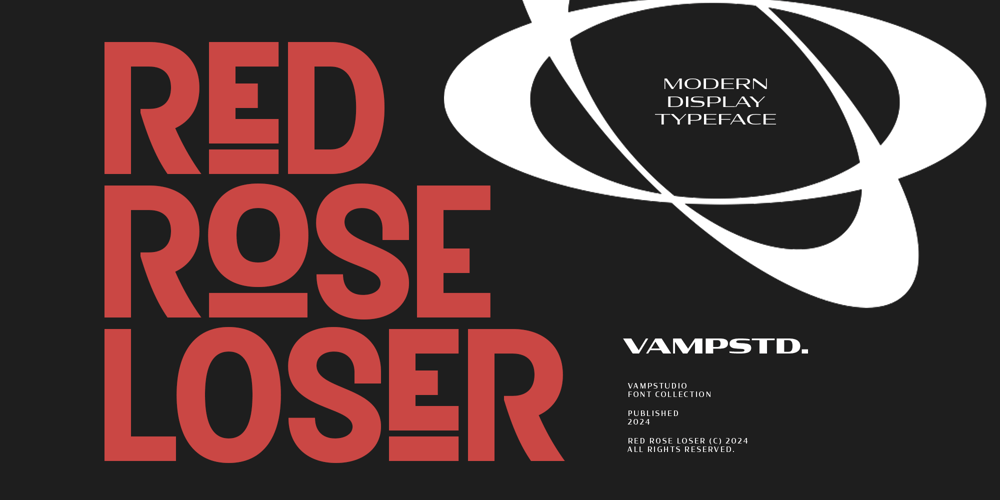
Red Rose Loser Font Family was designed by Irfan syah and published by Vampstudio. Red Rose Loser contains 1 styles and family package options. Red Rose Loser is a modern elegant and stylish Display font. This font looks very simple, clean, and elegant. Specially designed by skilled hands makes this font is the perfect fit for all your big projects.Red Rose Loser is perfect for branding projects, logo, wedding designs, social media posts, advertisements, product packaging, product designs, label, photography, watermark, invitation, stationery and any projects that need luxury and modern taste.